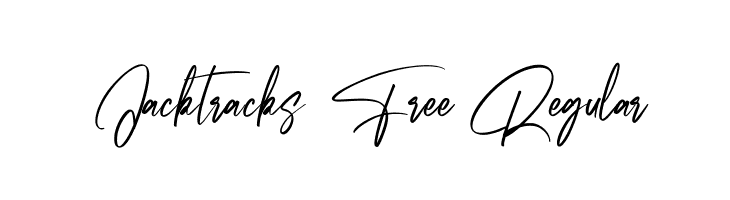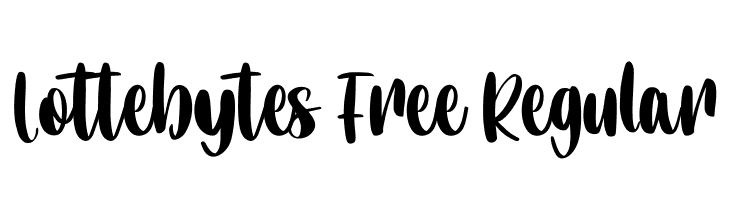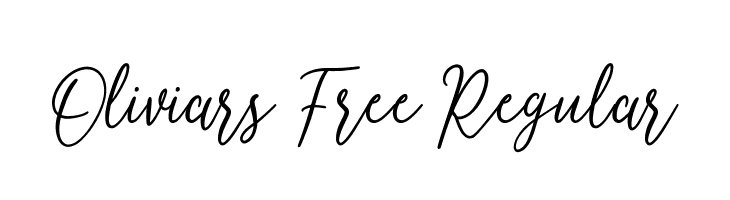
A modern, handwritten font with elegant curves and a dynamic style.
A lively handwritten font with fluid, dynamic strokes and a casual elegance.
A flowing, cursive script font with elegant, interconnected characters.
A dynamic and flowing script font with elegant, interconnected strokes.
A bold, handwritten-style font with a playful and friendly appearance.
A bold, brush-style font with dynamic, artistic strokes.
A modern, elegant handwritten font with fluid and continuous strokes.
An elegant and flowing script font with smooth, cursive strokes.
An elegant, flowing script font with interconnected, cursive strokes.
A bold, expressive handwritten font with fluid strokes and a playful style.